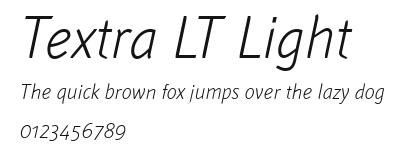
• Font Name: Textra LT Light
• Full Font Name: Textra LT Light Italic
• Designer: Jochen Schuss
• Manufacturer: Linotype Library GmbH
Textra LT Light.ttf is a modern, elegant sans-serif font designed for ultimate readability and visual harmony. Perfect for branding, headlines, web design, and print materials.